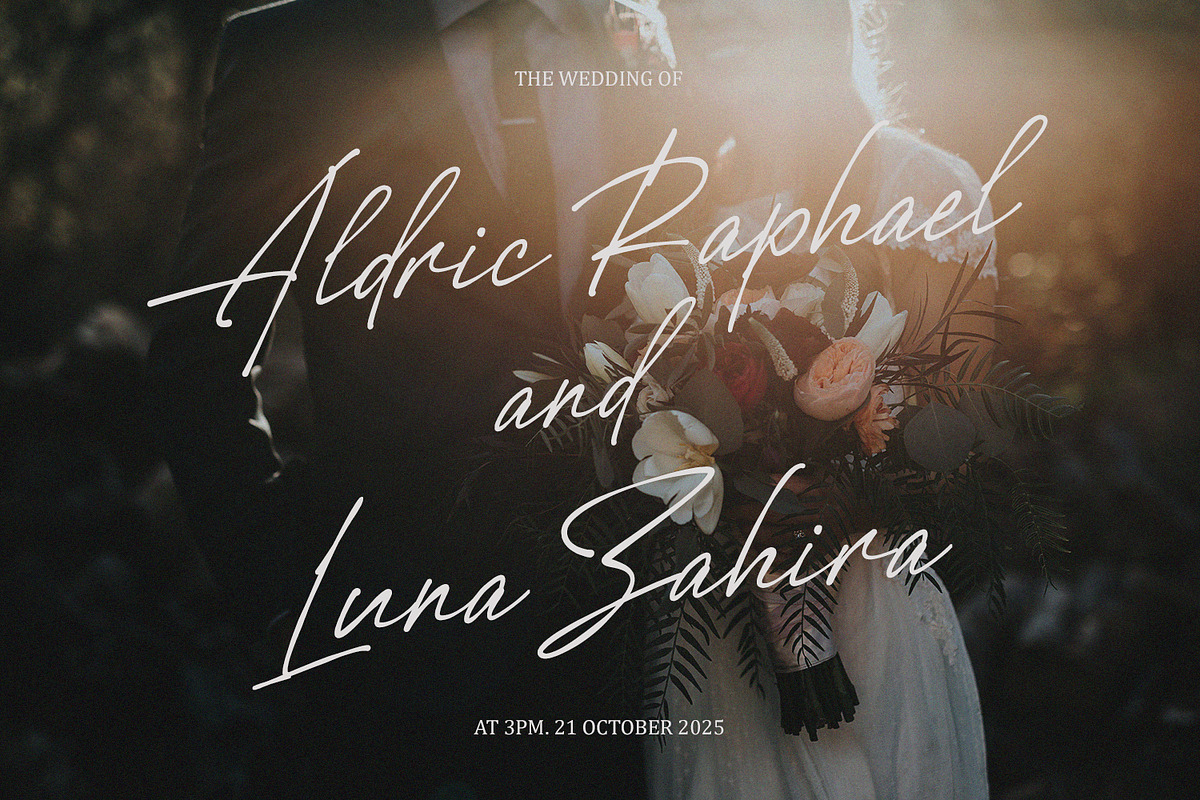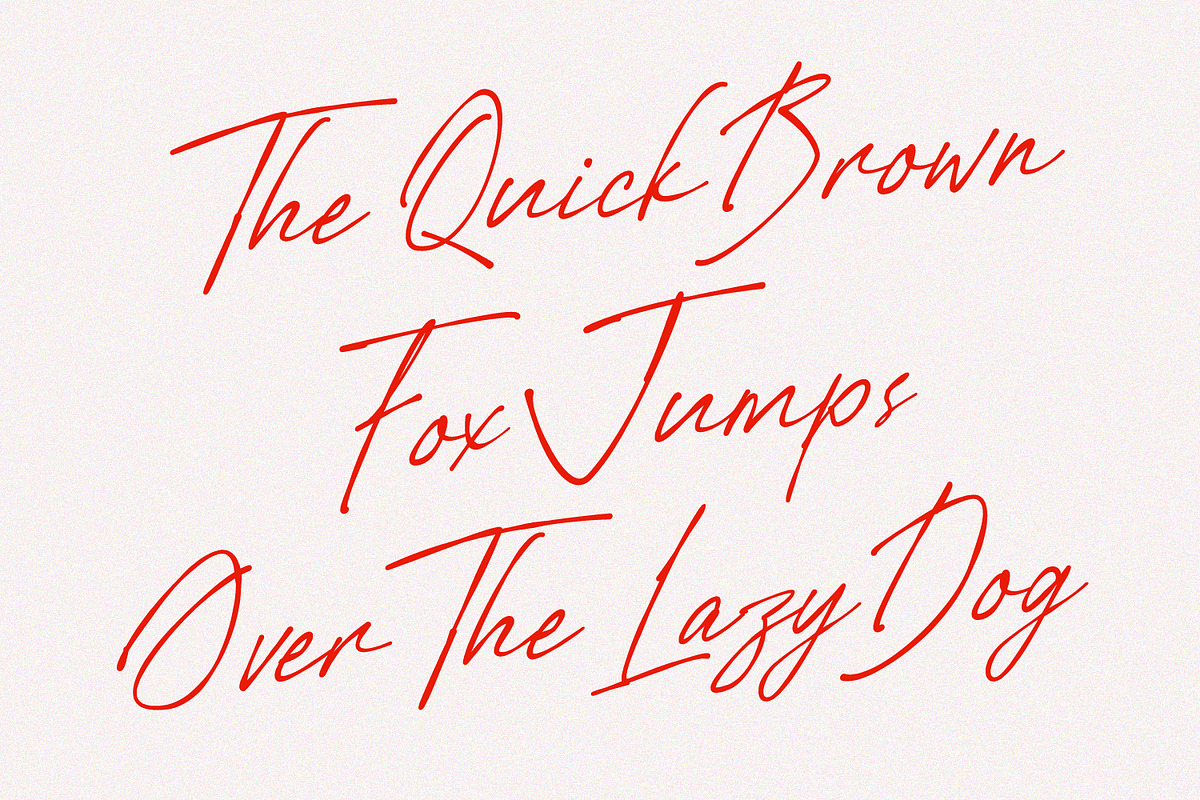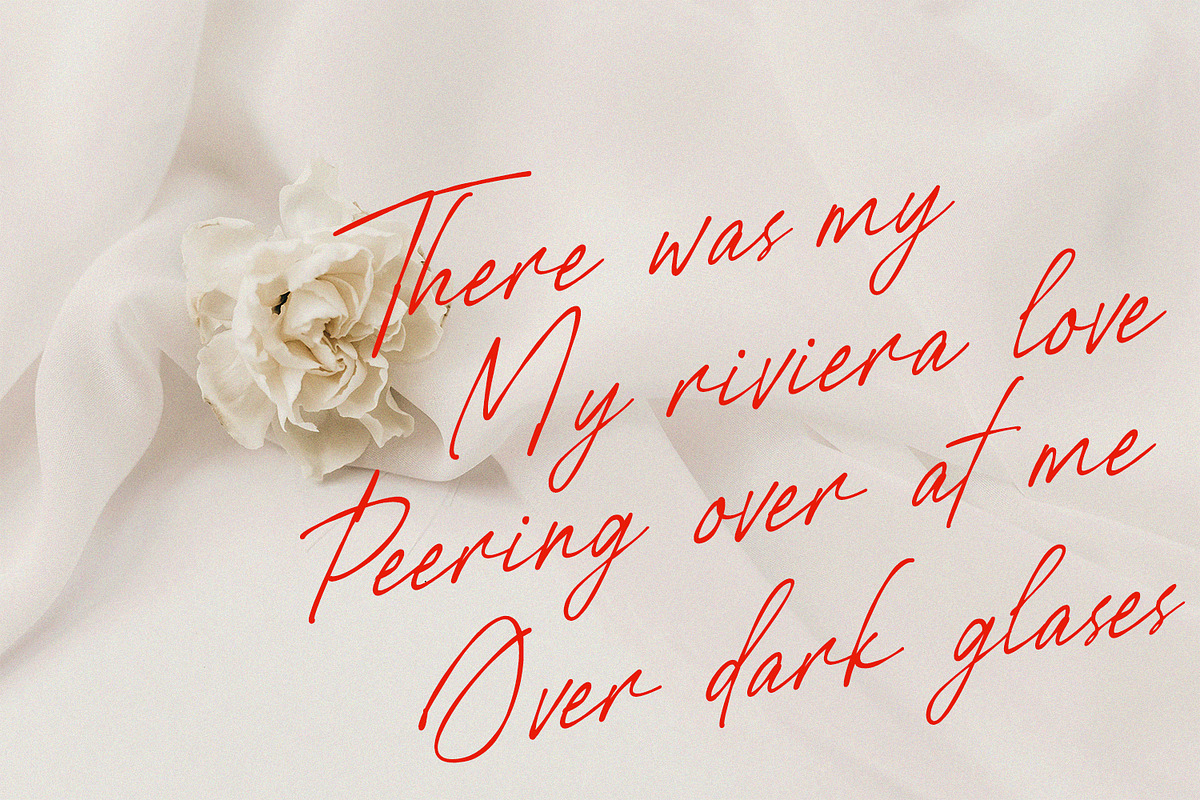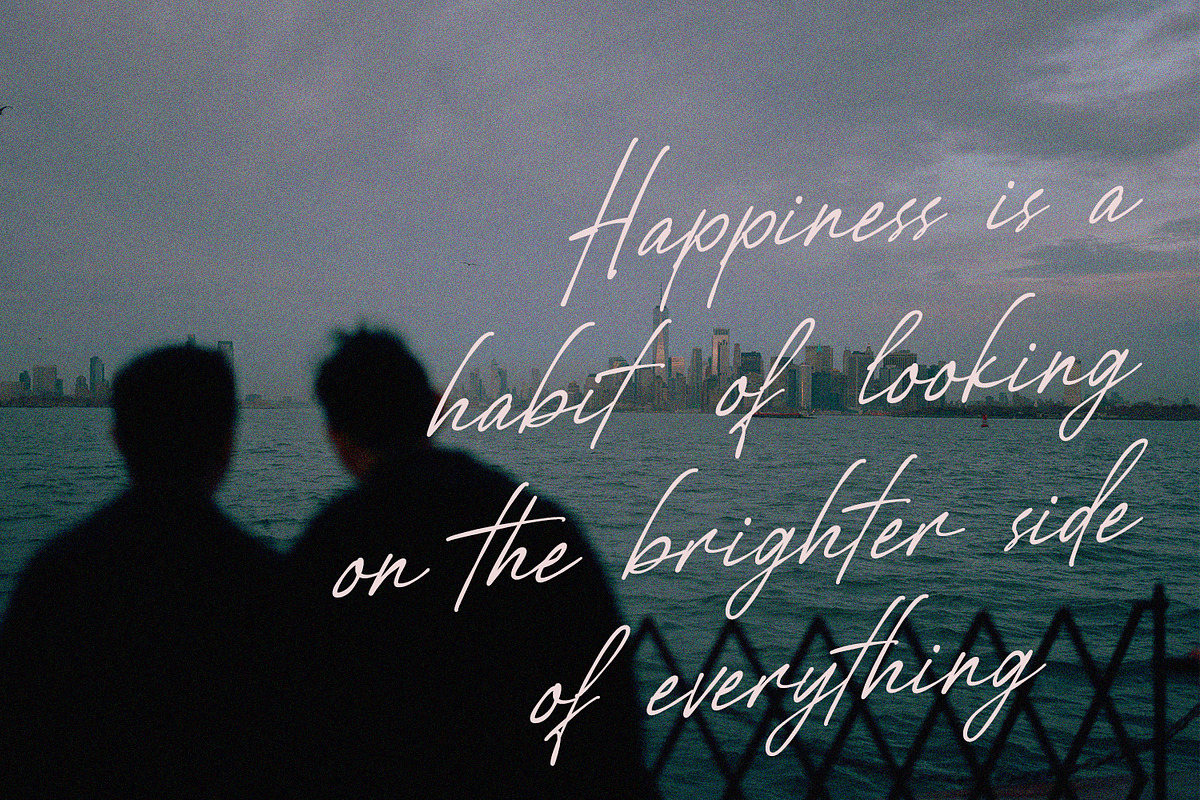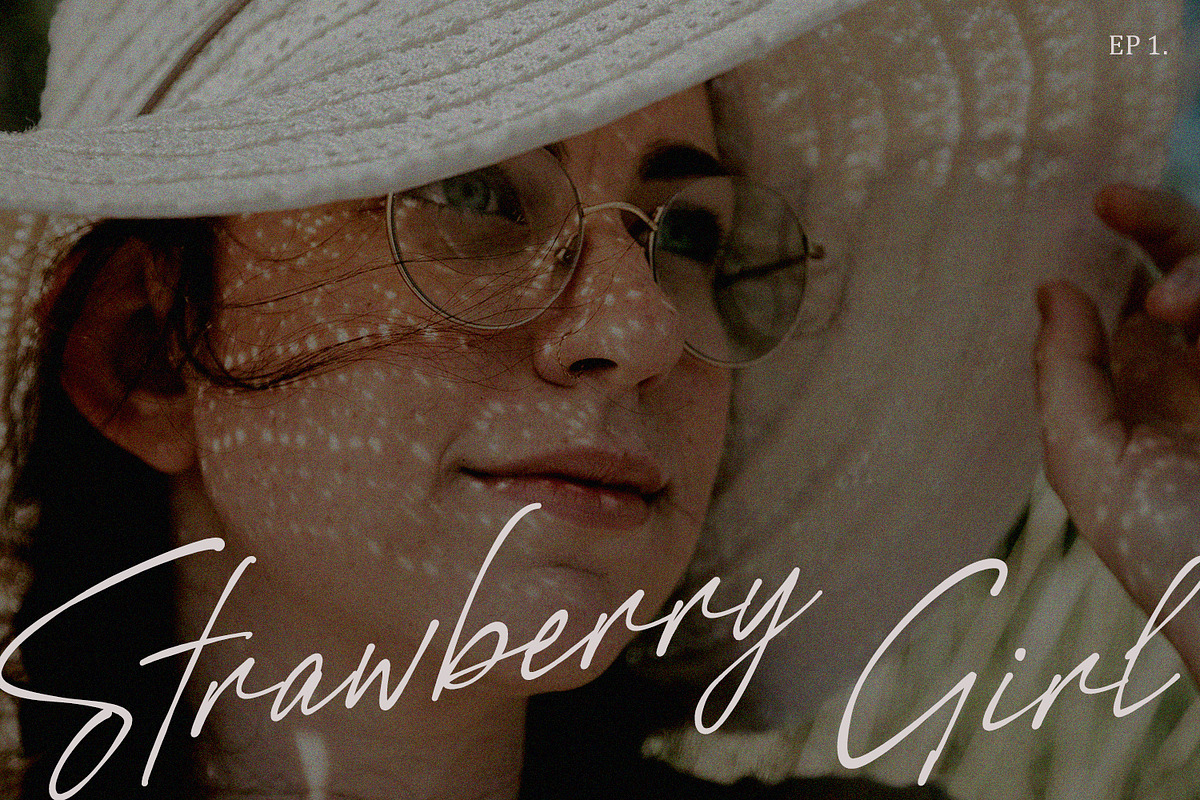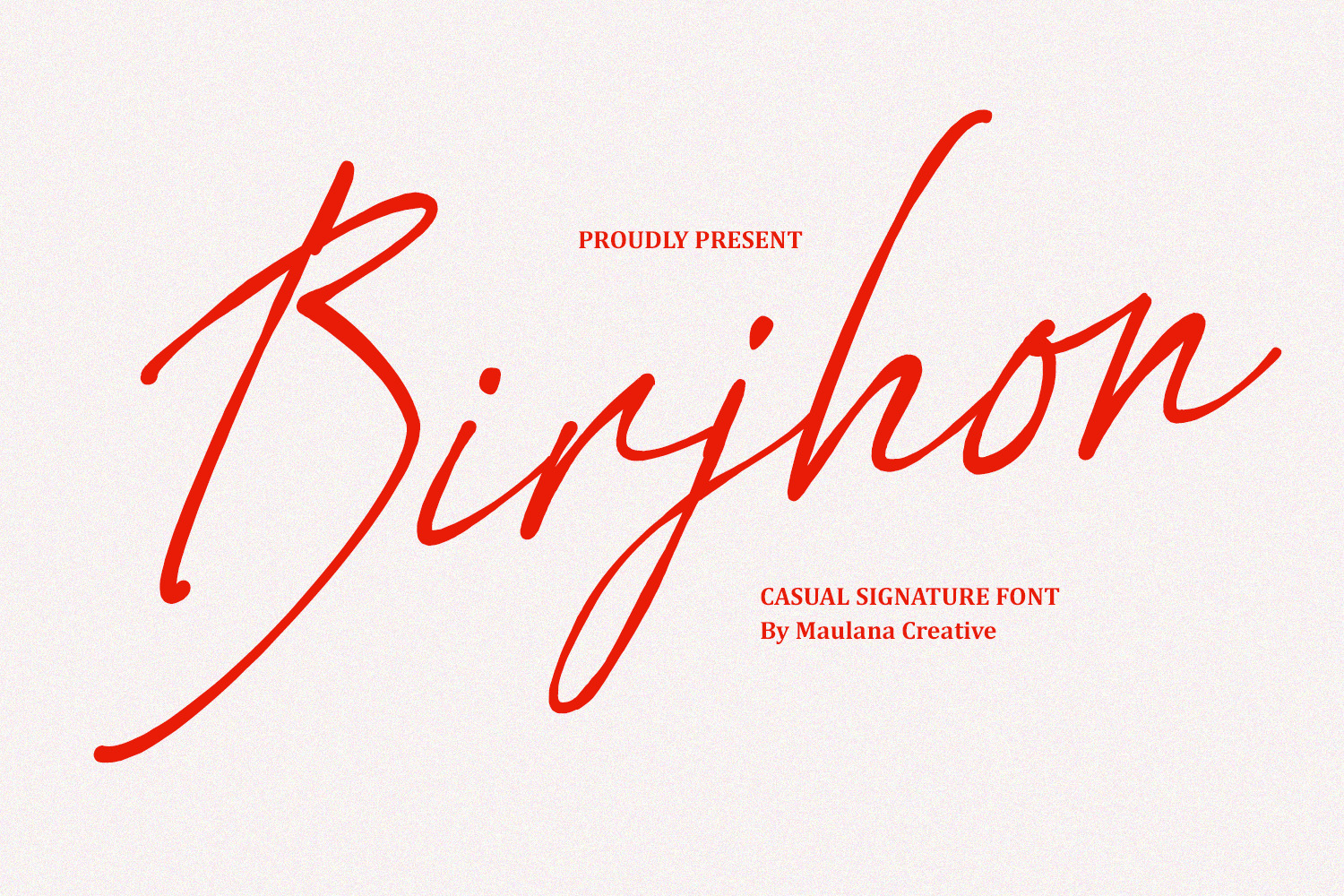
Birjhon Casual Signature Brush Font
Introducing Birjhon, a captivating Casual Signature Brush Font that blends organic, handwritten spontaneity with polished, chic style. Birjhon is the perfect typeface for designers looking to inject a genuine, personal touch into their projects.
Birjhon features flowing brush strokes, uneven baselines, and a natural slant, mimicking the look of authentic, quick signature writing. Its versatility shines across a multitude of applications:
- Branding & Identity: Create memorable, upscale logos and brand marks that convey authenticity and premium quality.
- Weddings & Events: Ideal for elegant invitations, menus, and personalized stationery that capture a romantic, handcrafted feel.
- Social Media & Photography: Perfect for stunning quotes, watermarks, and editorial overlays that stand out in a feed.
- Complete Character Set: Includes full Uppercase, Lowercase, Numerals, and Punctuation.
- Authentic Ligatures: Special ligatures are included to ensure your text flows naturally and beautifully, enhancing the genuine handwritten feel.
- Multi-Lingual Support: Ready to be used for a global audience.